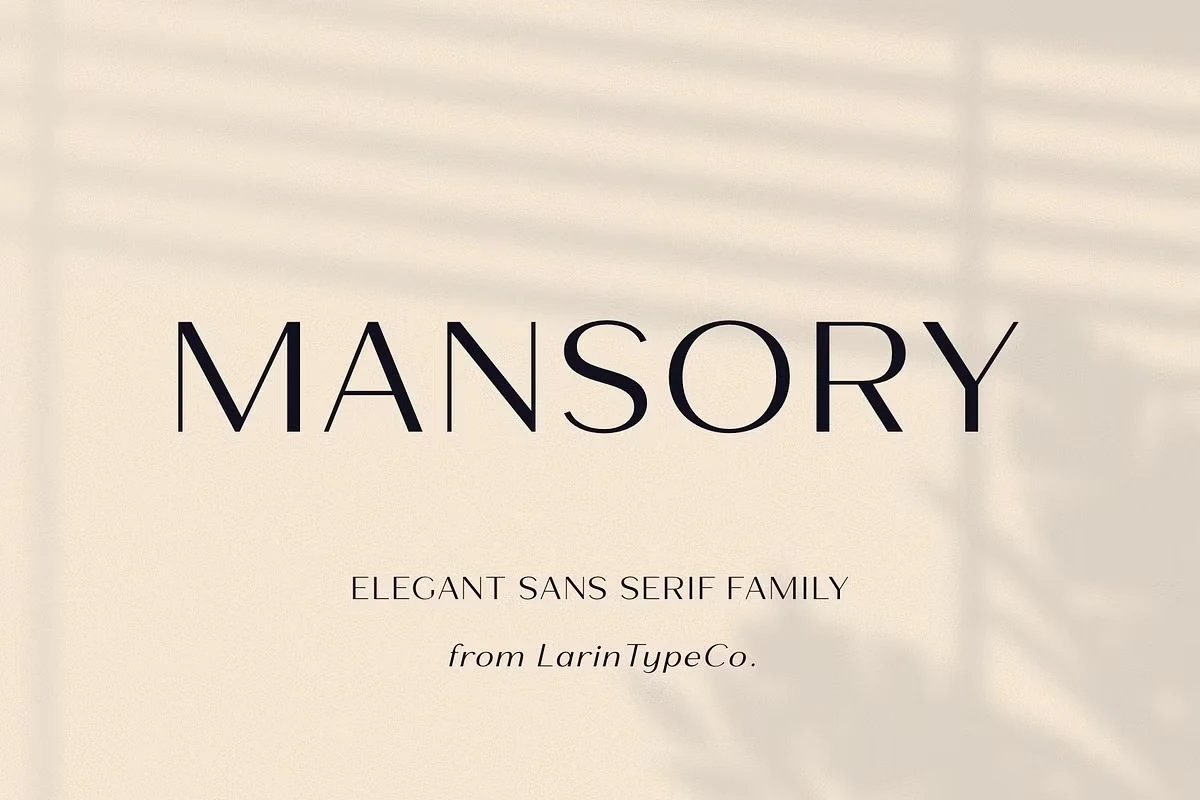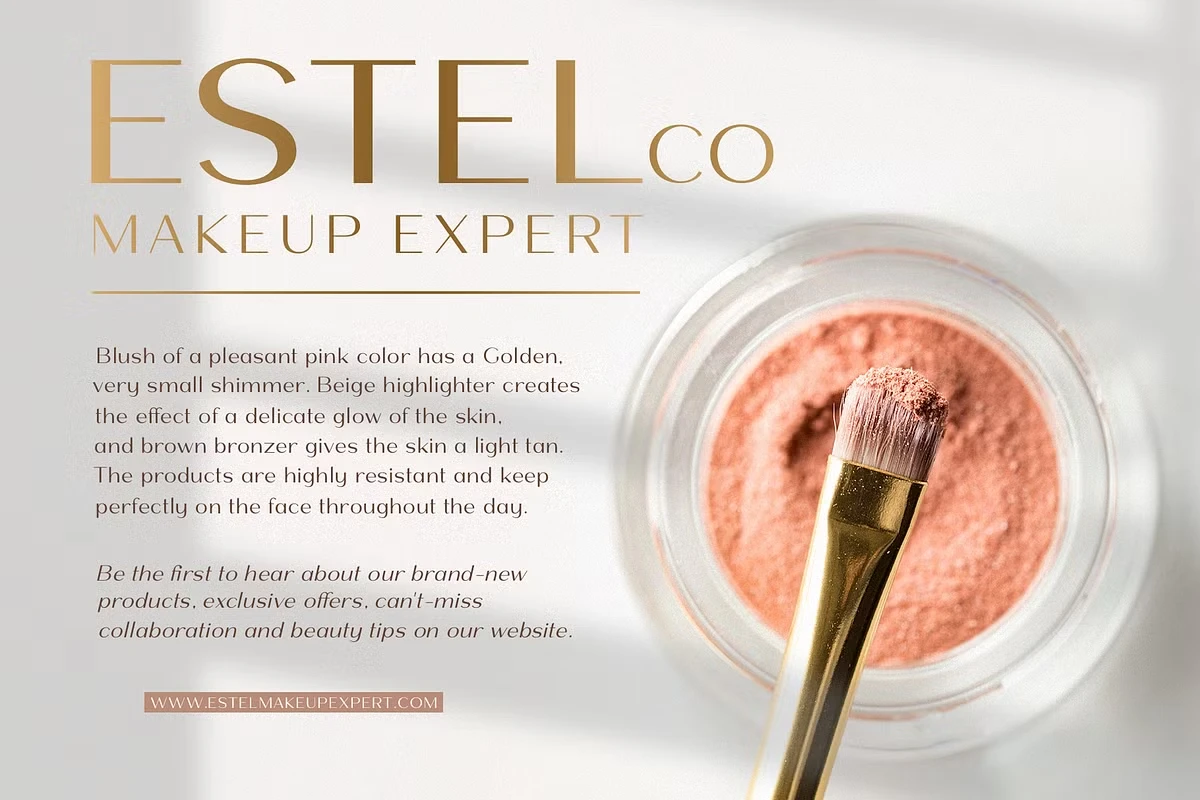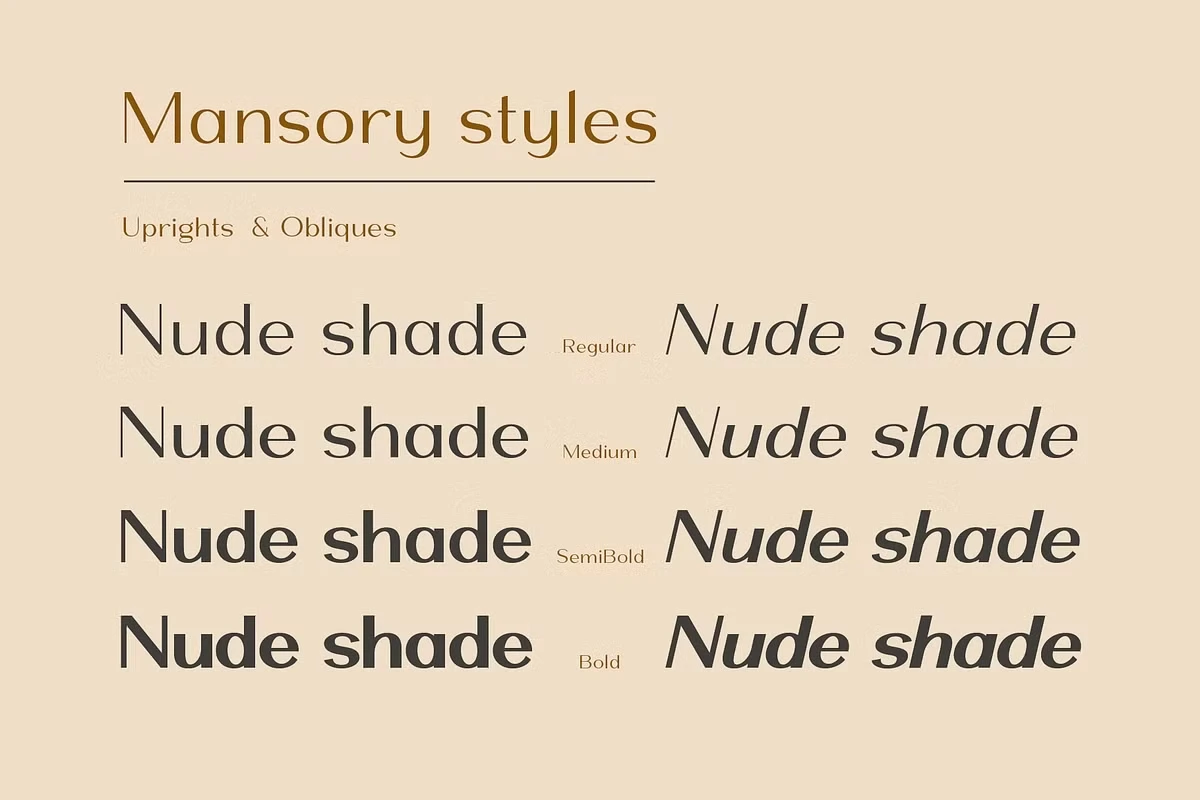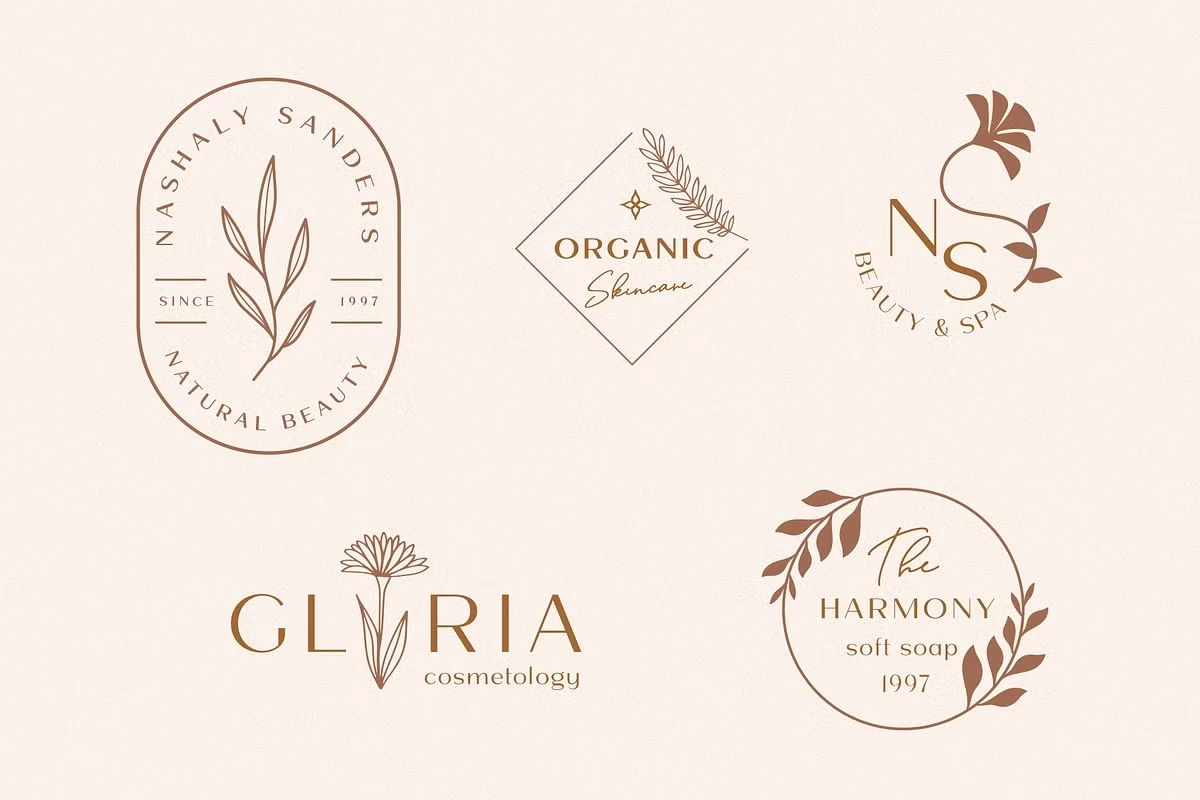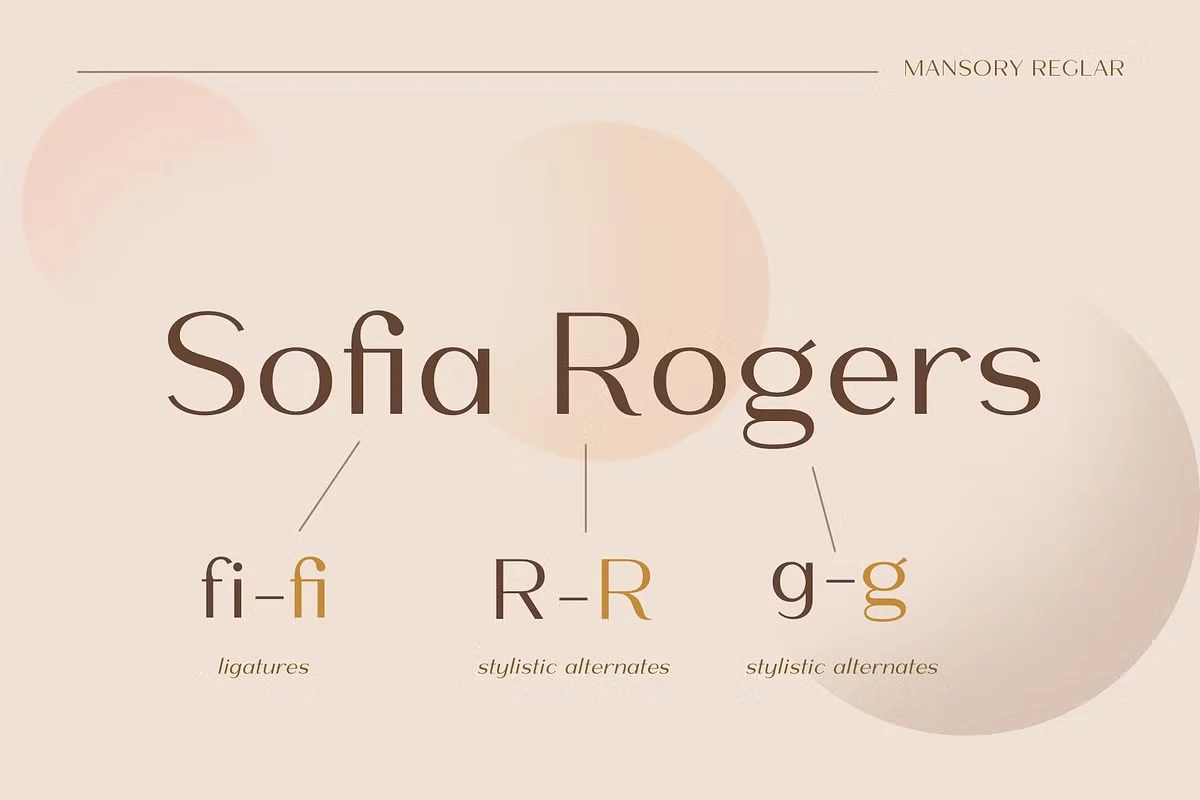
About Mansory Regular Font
I’m a typographer and graphic designer who often works on clean, modern branding. For a recent visual identity project, I needed a typeface that was both stylish and readable. That’s when I found the Mansory Regular Font. I discovered it on MyFonts while searching for something elegant but not too flashy. Once I saw the structure and contrast in the letterforms, I downloaded it and started testing it in headlines, logos, and web graphics. It instantly fit. I wanted to write this review because the font helped bring the whole design together and deserves more attention from fellow creatives.
What is Mansory Regular Font?
Mansory Regular Font is a modern, elegant sans serif font with contrast and style. Designed by Larin Type Co., it blends clean geometry with artistic balance. This typeface comes with four weights and two styles: upright and oblique. The regular weight is great for body text, while the heavier styles are perfect for logos and headings.
The design plays with soft curves and precise angles. You’ll notice how the wide letterforms and short ascenders create clear spacing and rhythm. That spacing makes the text easy to read without feeling too loose. The mansory font family includes stylistic alternates and ligatures, adding flexibility to your typography projects.
Larin Type Co. created this font with professional design in mind. Whether you’re working on a modern brand or editorial layout, the Mansory Regular Font gives structure and personality. It’s not flashy, but it’s far from plain. It sits nicely between minimal and expressive, offering balance and elegance in every style.
Features of the Mansory Regular Font
This font includes four weights and two styles, giving you plenty of room to experiment. It works across different visual needs, from soft, elegant text to bold display headings. The regular style keeps things clean and calm. The heavier weights bring strength to the design without making it look bulky.
OpenType features include stylistic alternates, ligatures, and multilingual support. You’ll find full uppercase and lowercase alphabets, numbers, fractions, symbols, and punctuation. The character set covers both Western and Central European languages with an extended set of international symbols.
Every detail is intentional. The contrast between strokes, soft transitions, and rounded edges gives it a polished but approachable look. Whether you’re designing a digital product or a printed brochure, the font performs with clarity and class. The Mansory Regular Font download comes packaged and ready to use right away.
Where can you use this font?
Mansory Regular Font works well in a wide range of design projects. It fits perfectly in logos, web design, headlines, and editorial layouts. The regular weight is ideal for body text, while the bolder styles are strong enough for branding.
If you’re building a product label, fashion brand, or digital portfolio, this font brings visual balance and structure. The soft curves make it feel creative, while the contrast adds just enough edge. It works in both minimalist and expressive environments, giving you room to experiment without losing consistency.
Use it on websites, desktop layouts, creative presentations, or marketing collateral. The spacing is generous, which makes it easy to read on screens and in print. You can explore stylistic sets for variety or stick with the clean base form for a classic look.
Because of its versatility, you can pair it with other fonts or let it stand on its own. The font gives your work a professional, refined feel without requiring much adjustment. Whether you’re designing something light or bold, this typeface gives you flexible tools to elevate the final design.